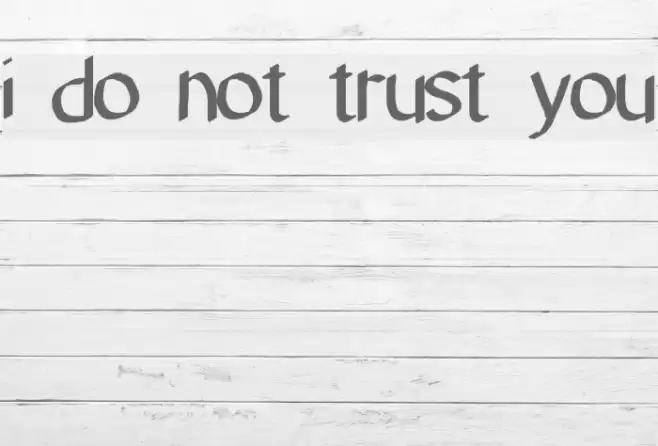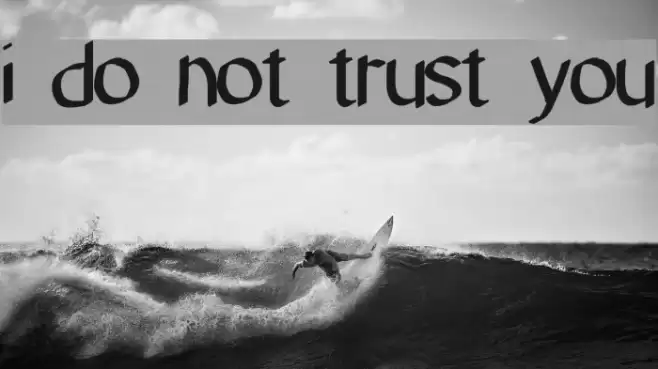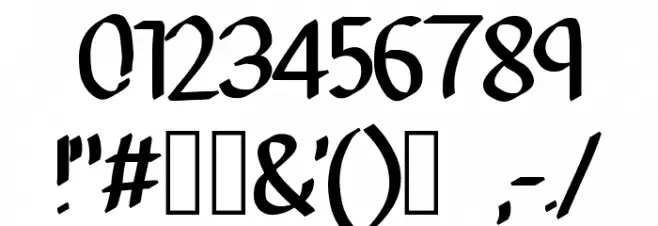
i do not trust you Font
i do not trust you Description
This font features a bold and dynamic style with a slightly slanted orientation, giving it a sense of movement and energy. The characters are crafted with a brush-like appearance, showcasing varying stroke thicknesses that add a hand-drawn, artistic flair. The uppercase letters are tall and commanding, while the lowercase letters maintain a consistent style with a playful touch. The numbers are clear and legible, matching the overall aesthetic. Special characters are uniquely designed, complementing the font's lively and expressive nature.
A bold, brush-like font with dynamic strokes and a playful, artistic style from Uncategorized fonts.
- Proposed Projects: Ideal for creative projects such as posters, branding, and packaging design where a lively and artistic touch is desired.
- Overall Style: Modern, Artistic